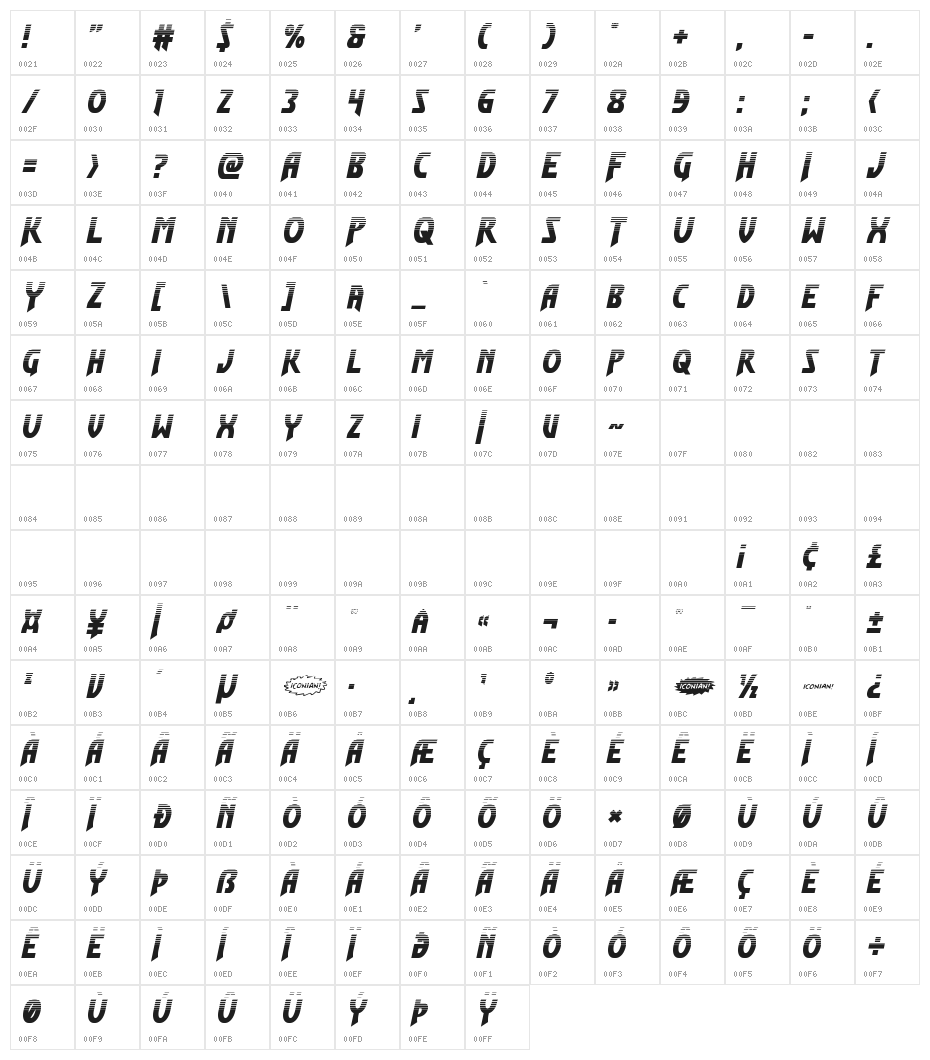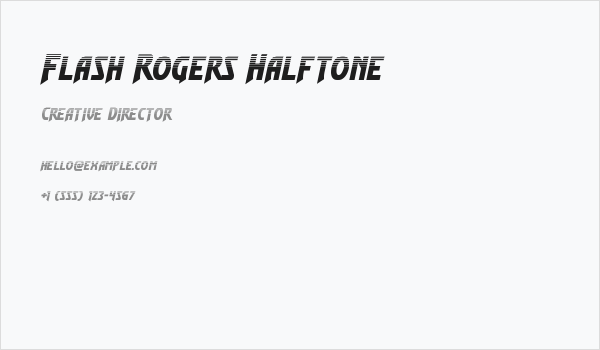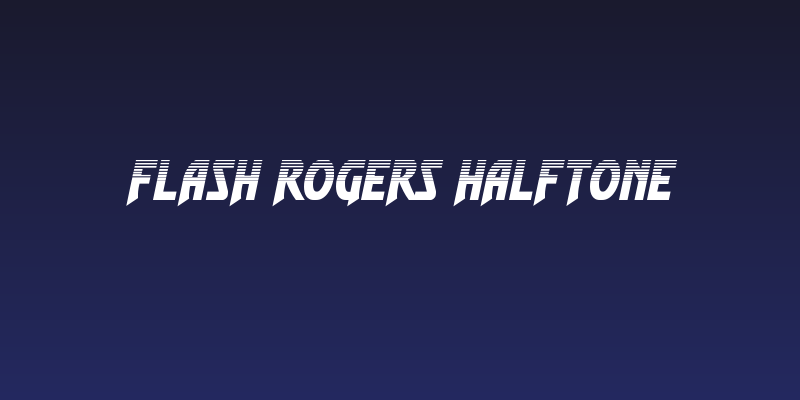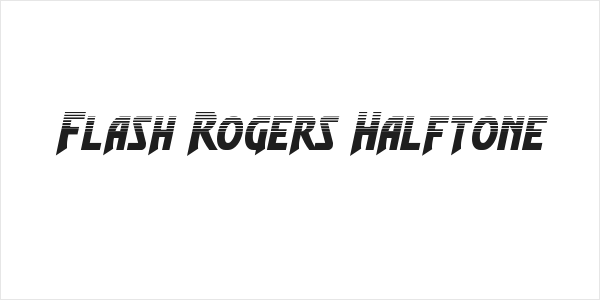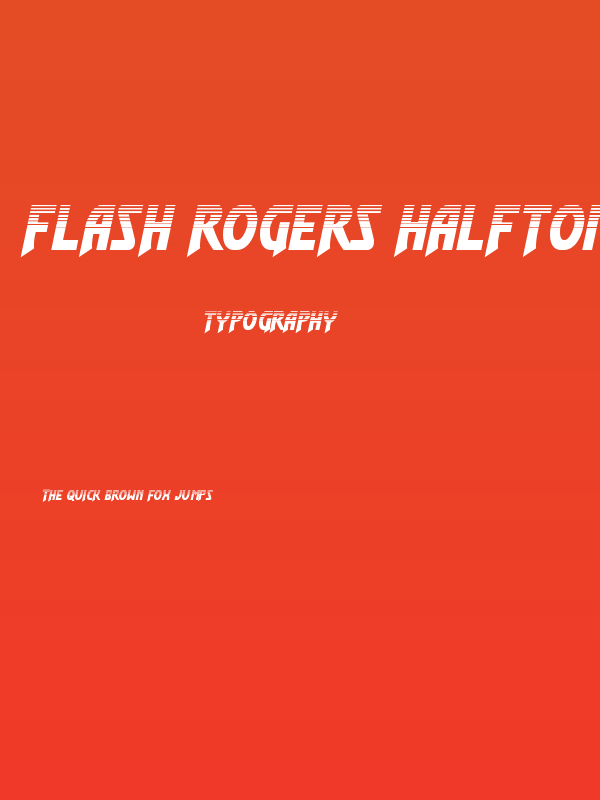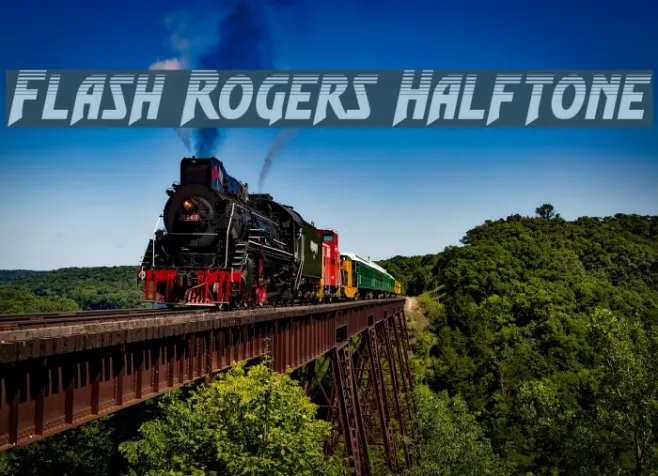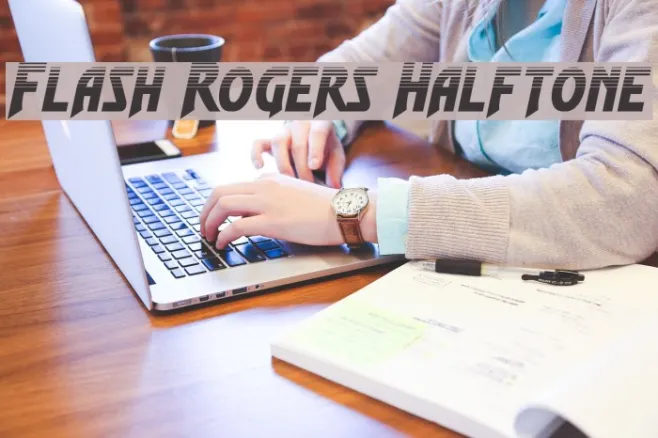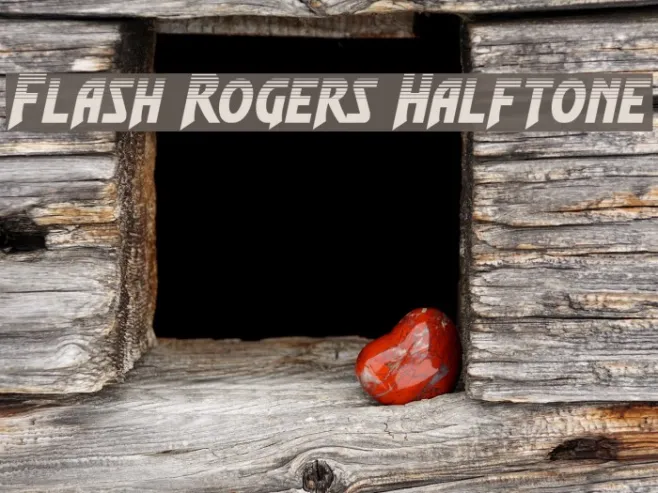
Flash Rogers Halftone Font
Flash Rogers Halftone Description
This font features a bold, dynamic style with a distinct halftone pattern that gives it a sense of motion and energy. The characters are designed with sharp, angular edges and a slanted orientation, enhancing the feeling of speed and movement. The halftone effect is achieved through horizontal lines that create a gradient-like appearance, adding depth and texture to the letters. This font is highly stylized, making it ideal for attention-grabbing headlines or logos that require a futuristic or action-oriented aesthetic. The uppercase and lowercase letters maintain a consistent design, ensuring uniformity across different text applications. The numerals and special characters are crafted with the same attention to detail, providing a cohesive look throughout.
| Proposed Projects | Ideal for use in comic book titles, video game graphics, movie posters, or any project requiring a futuristic or energetic look. |